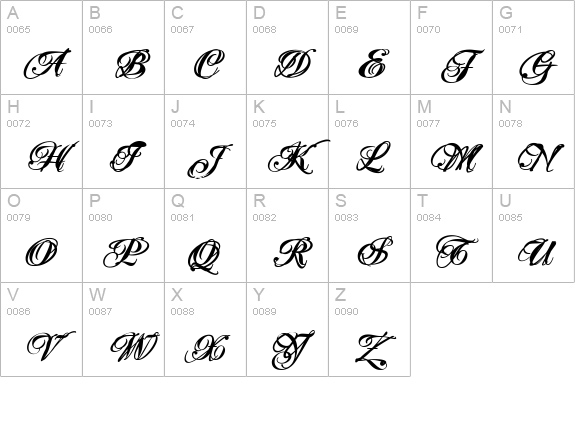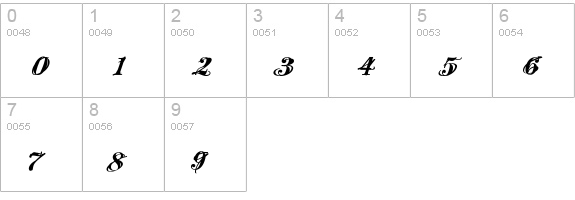
Mascara Bold Font Details
Mascara Bold is a strong, high-contrast variant in the Mascara typeface family \xE2\x80\x94 well suited to headlines, attention-grabbing titles, and strong calls-to-action.
Introducing Mascara Bold, a stunning and versatile font that will make a bold statement in any design project. This typeface is the perfect combination of elegance and edginess, with its clean lines and strong curves. Its bold and expressive nature will captivate and engage your audience, leaving a lasting impression. Mascara Bold is not just your ordinary font - it's a powerful tool that will elevate your designs to new heights. Whether you're creating a logo, poster, or website, this font will add a touch of sophistication and modernity to your work. Its versatility allows it to be used in a variety of styles and contexts, making it suitable for both personal and commercial projects. One of the best things about Mascara Bold is that it is freely available to download at FontsMarket.com. Yes, you read that right - this amazing font can be yours without any cost. FontsMarket.com is a trusted source for high-quality fonts, and they have made Mascara Bold accessible to everyone, ensuring that designers of all levels can benefit from its beauty and impact. So, don't miss out on the opportunity to enhance your designs with Mascara Bold. Download it today, and let your creativity soar to new heights. Whether you're a professional designer or a passionate hobbyist, this font will add a touch of boldness and elegance to your projects, making them truly stand out.